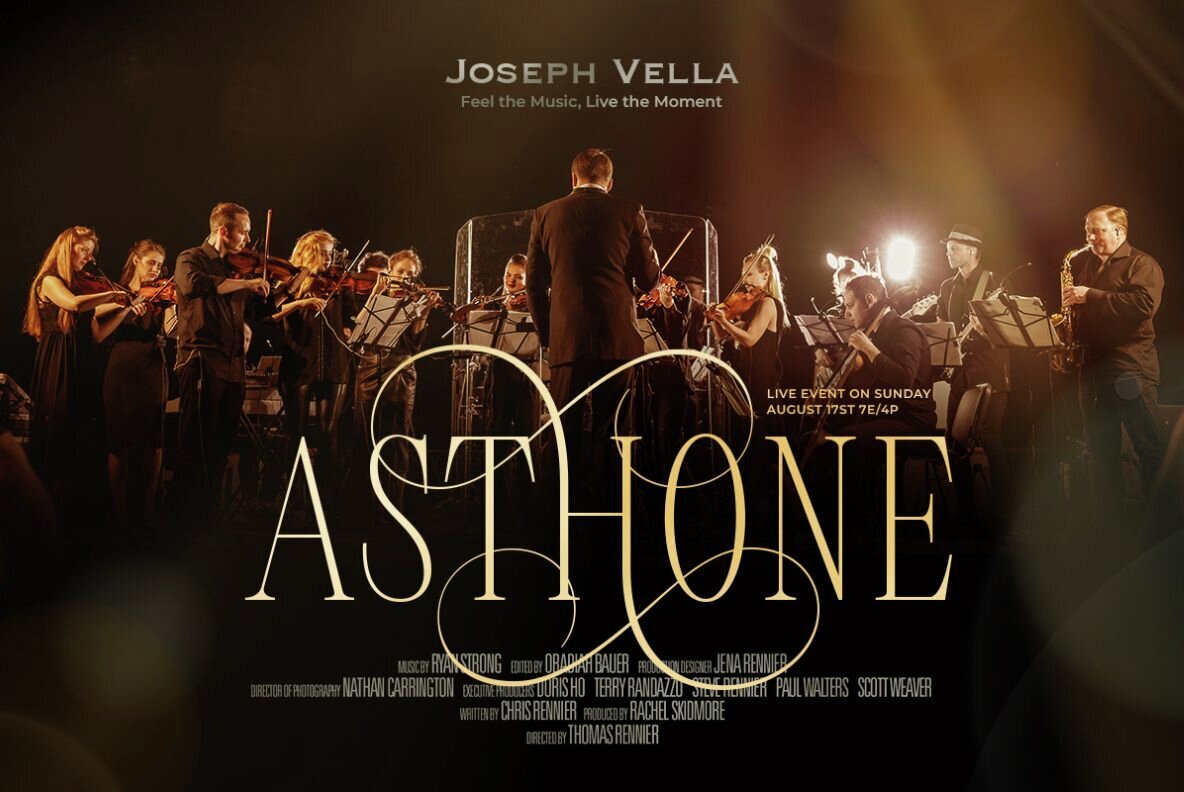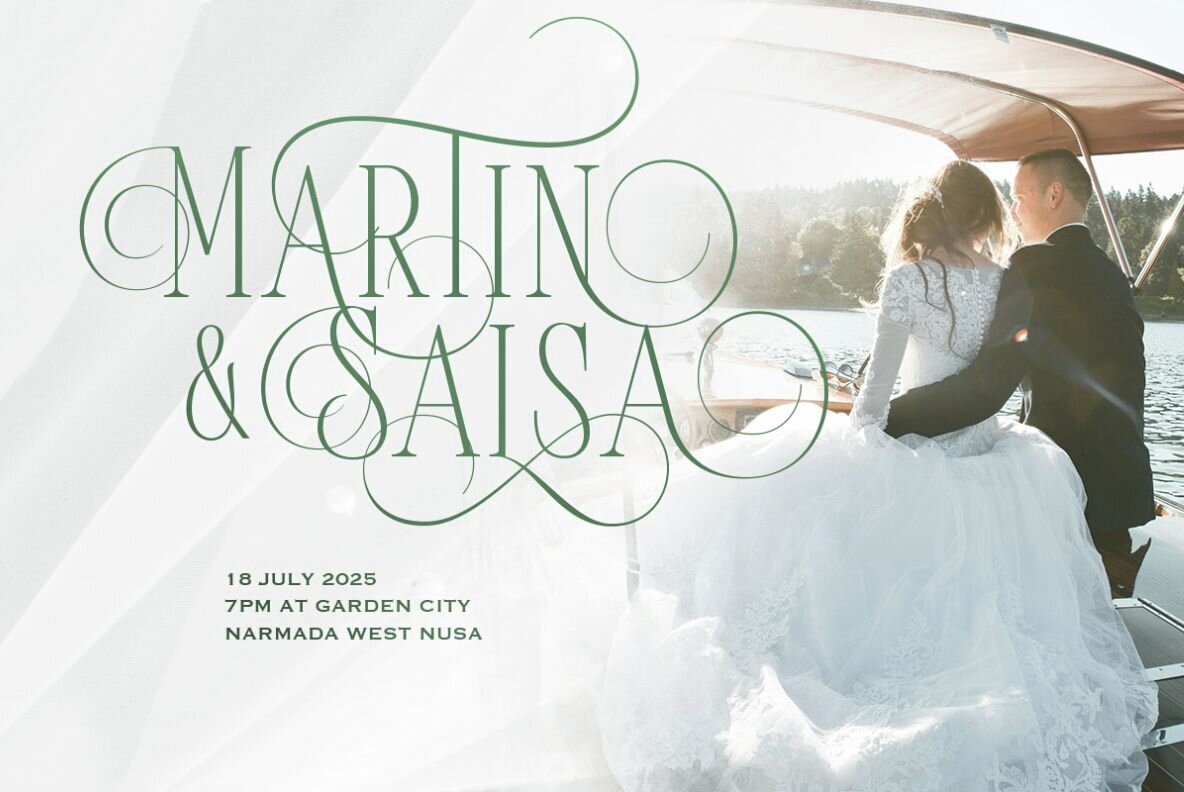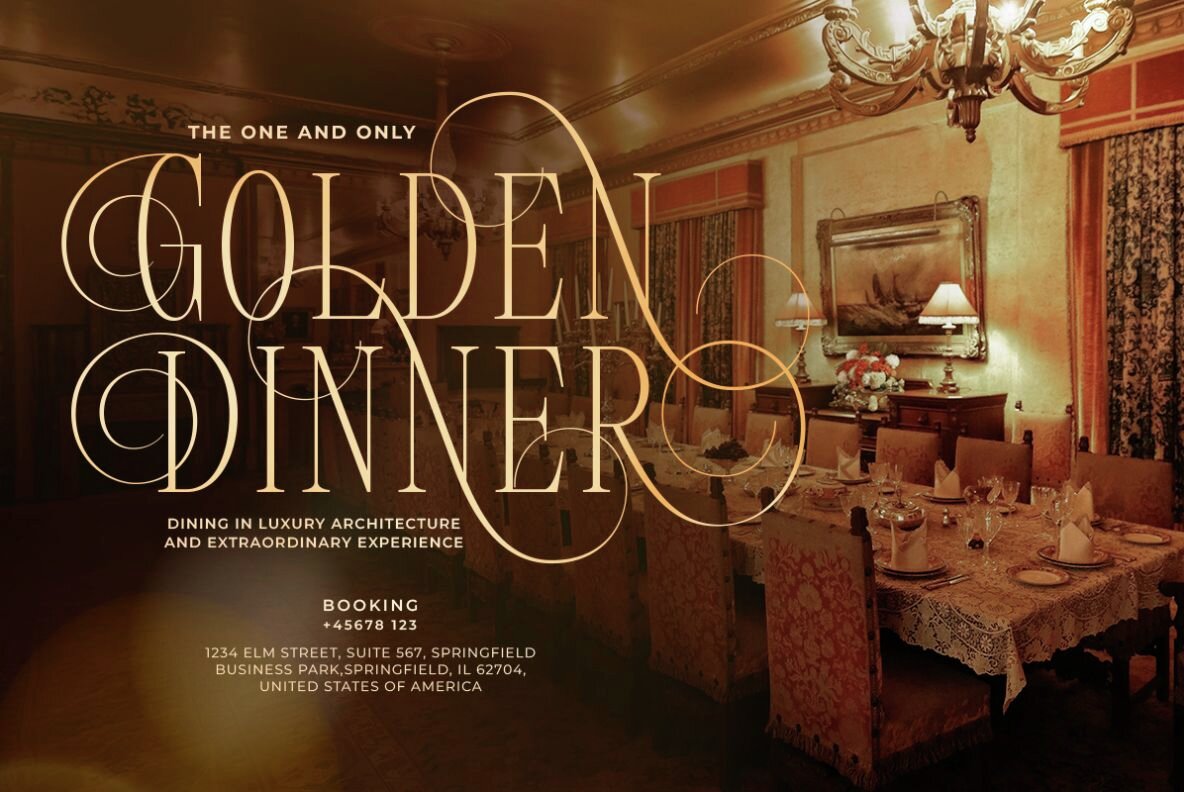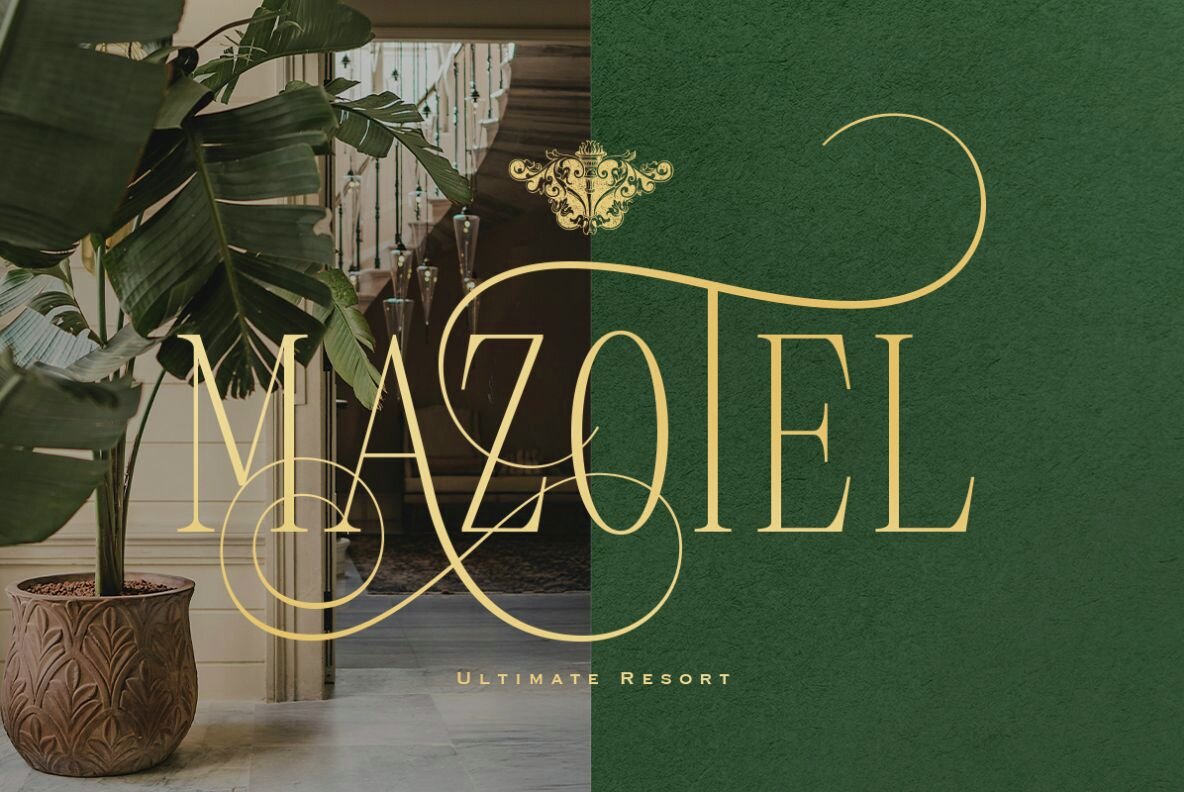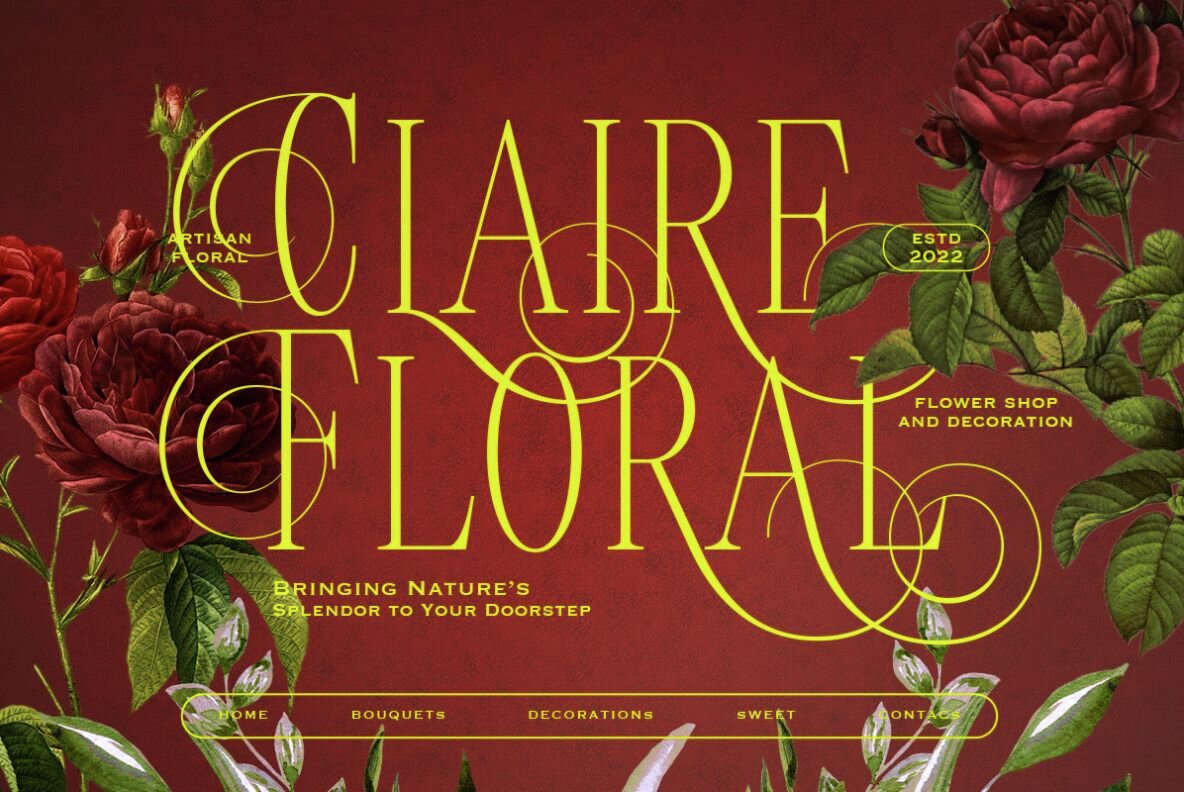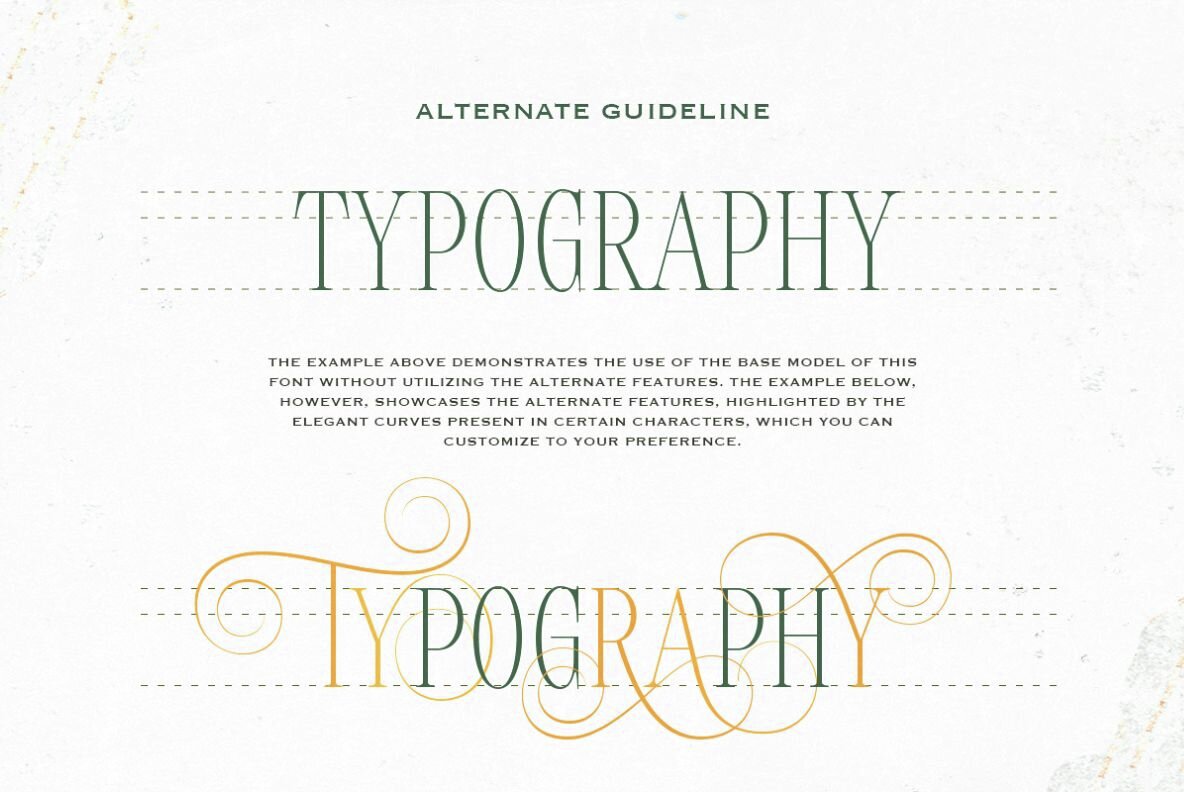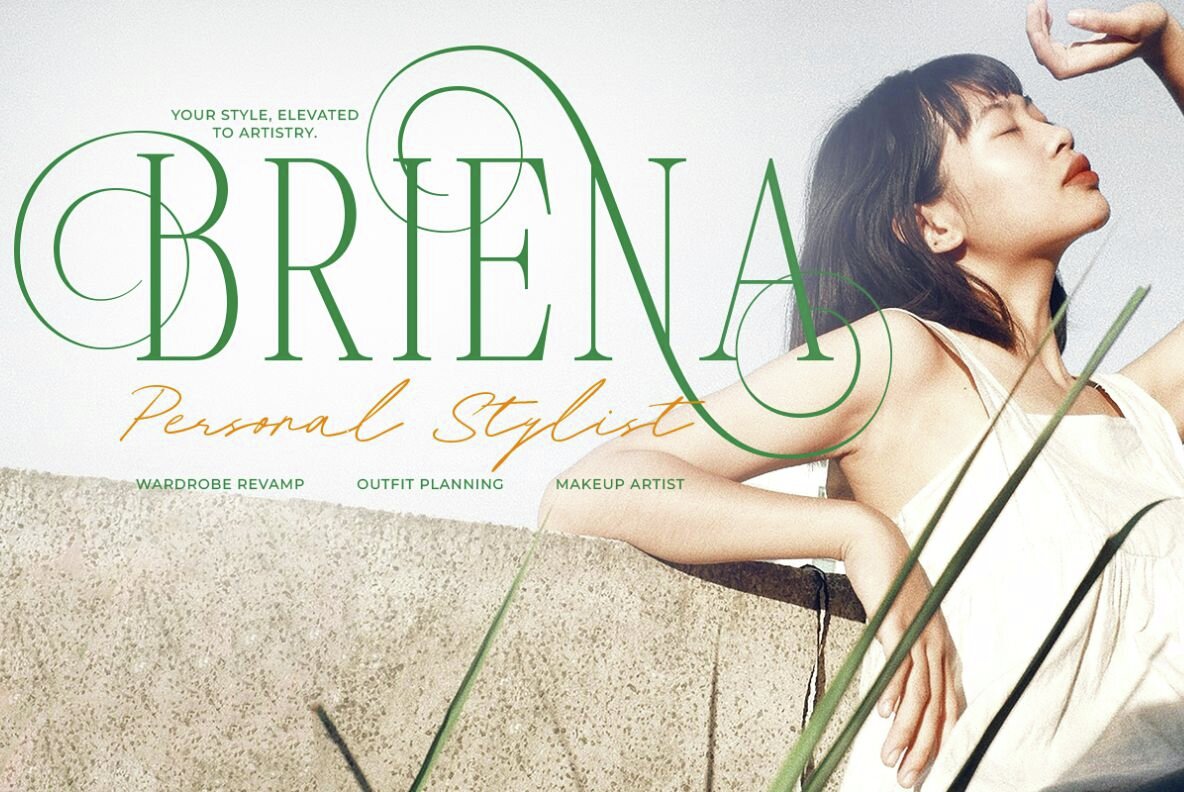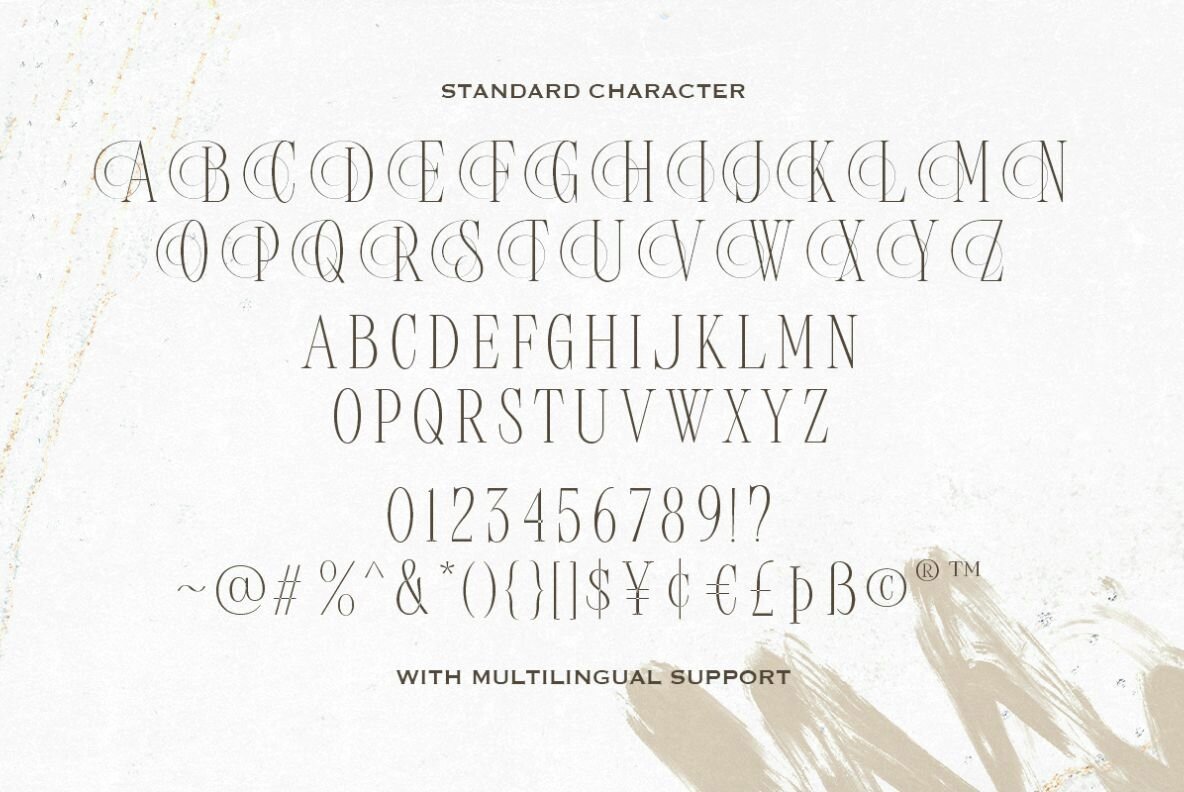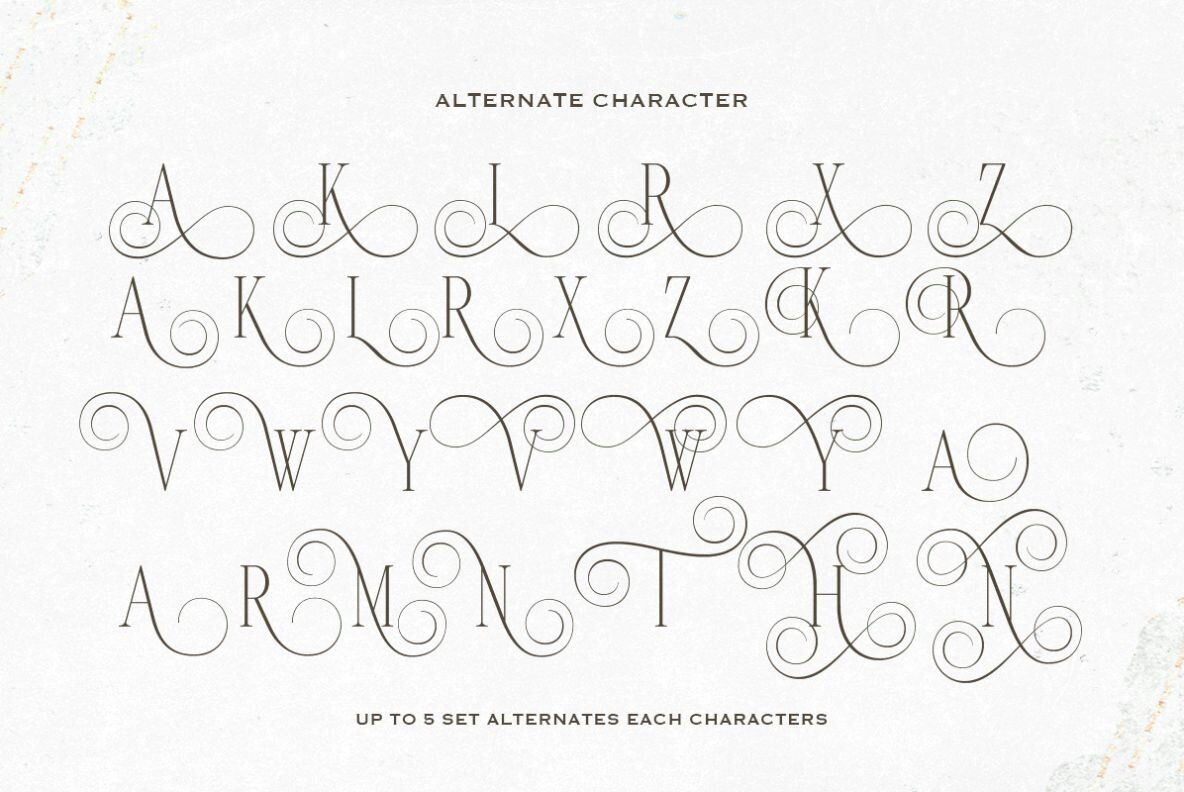
Marviena Font
Marviena Regular
Marviena is a sophisticated all-caps tall serif font, designed to exude elegance and luxury. Characterized by its swirly alternates, this font adds a touch of flair to any project in need of a refined aesthetic. The unique variations in height and shape between uppercase and lowercase characters offer versatility, ensuring your designs are visually captivating.
Combining the standard characters with the distinct alternates can create a stunning and polished appearance. Marviena is an excellent choice for any designer seeking to incorporate a touch of classic elegance into their work. Additionally, this font supports multiple languages, broadening its usability across diverse design projects.